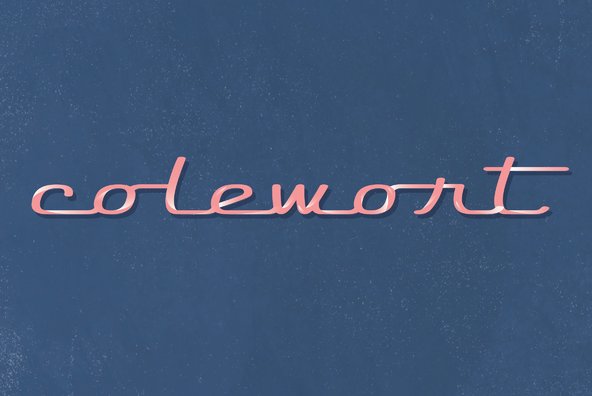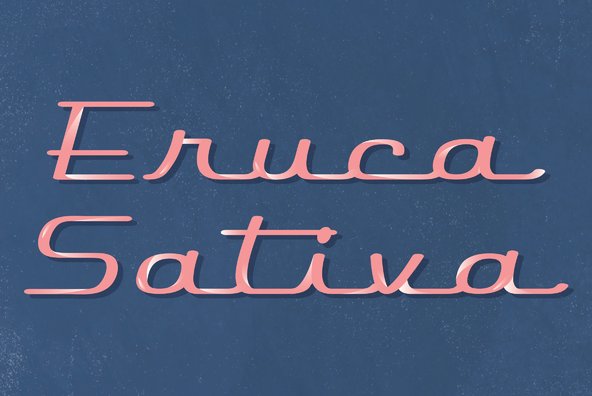
Rocket Script Font
Rocket Script
Houston, we have a font! I repeat, we have a font! Blasting at you from out of this world is our extra speedy new retro script font Rocket Script!
Stuart Sandler launched the Font Diner foundry in 1996 and has become a major resource for retro design software products. He has created more than 500 original typefaces for the graphic design industry and established a reputation as the premier retro display typography designer inspired by 1950s popular cult...